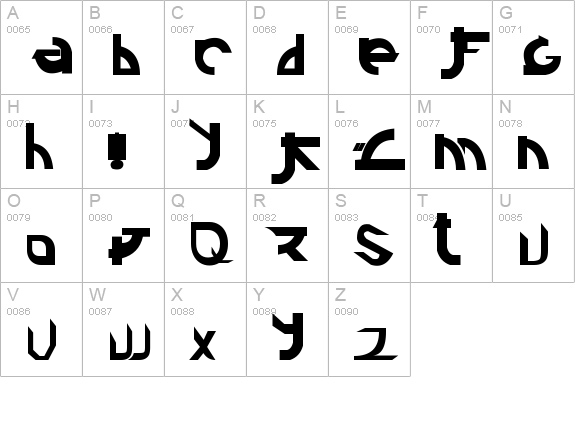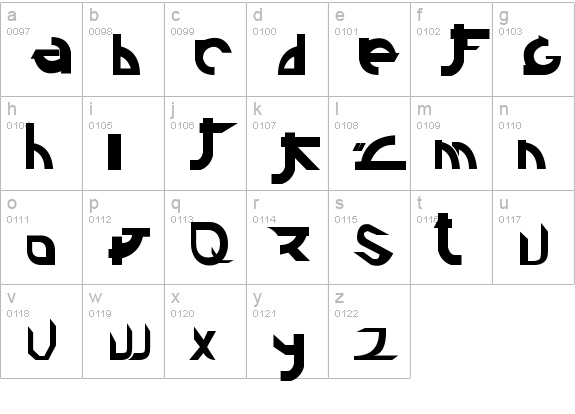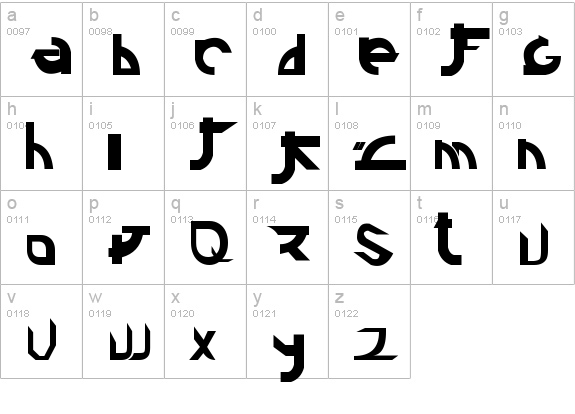
Linkin Font Details
Linkin font is a modern and stylish typeface that effortlessly combines elegance with a touch of sophistication. Its clean lines and sharp edges make it perfect for a wide range of design projects, from branding to editorial design. With its versatile style, Linkin font is sure to make your text stand out and leave a lasting impression on your audience. Best of all, Linkin font is available for free download at FontsMarket.com, so you can easily add this sleek and professional typeface to your collection without breaking the bank. Elevate your designs with Linkin font today!